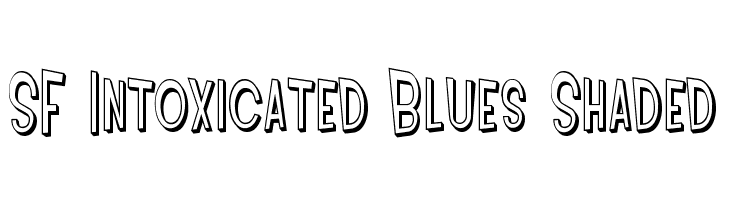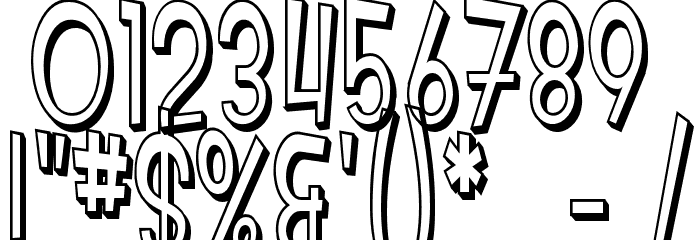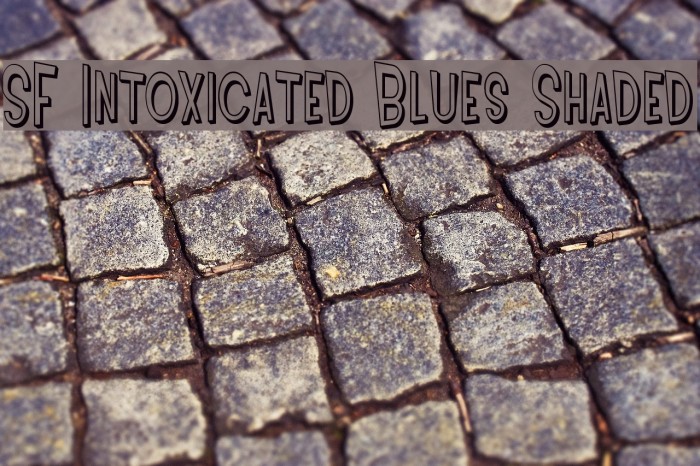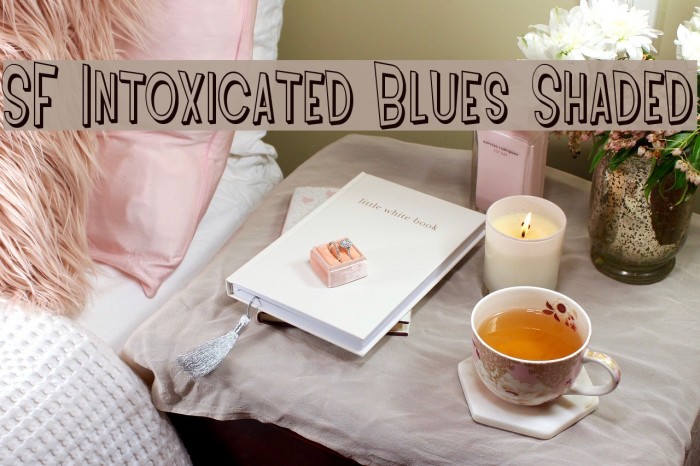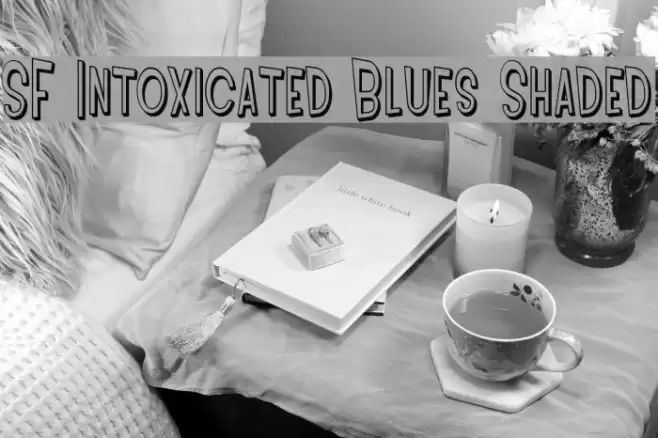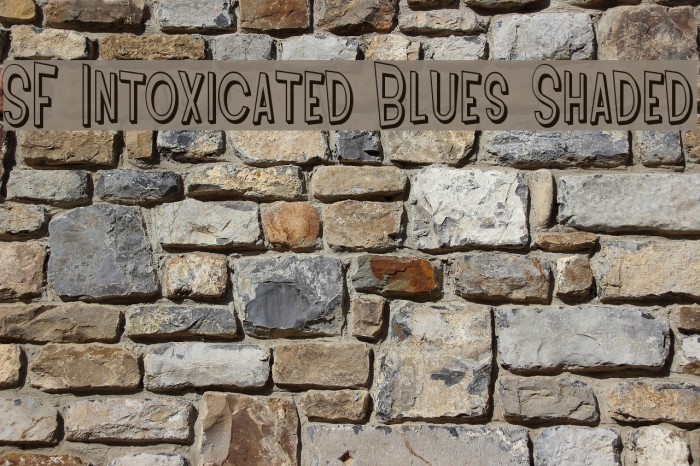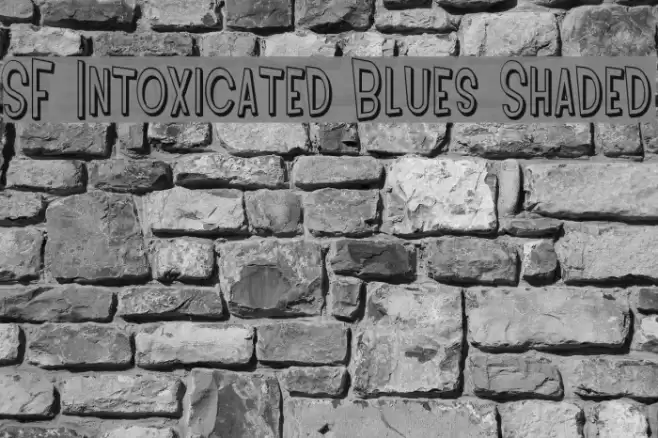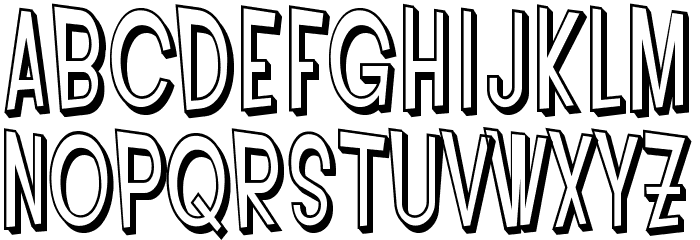
SF Intoxicated Blues Shaded Font
SF Intoxicated Blues Shaded Description
This font features a bold, eye-catching design with a shaded outline that gives it a three-dimensional appearance. The letters are uppercase and maintain a consistent height, providing a uniform look across the alphabet. The shading adds depth and a playful, dynamic quality, making it stand out in any design. The characters are well-spaced, ensuring readability while maintaining a strong visual impact. This style is particularly suited for projects that require a bold statement or a creative flair.
| Proposed Projects | Perfect for poster designs, headlines, branding projects, and any creative work that requires a bold and dynamic font. |